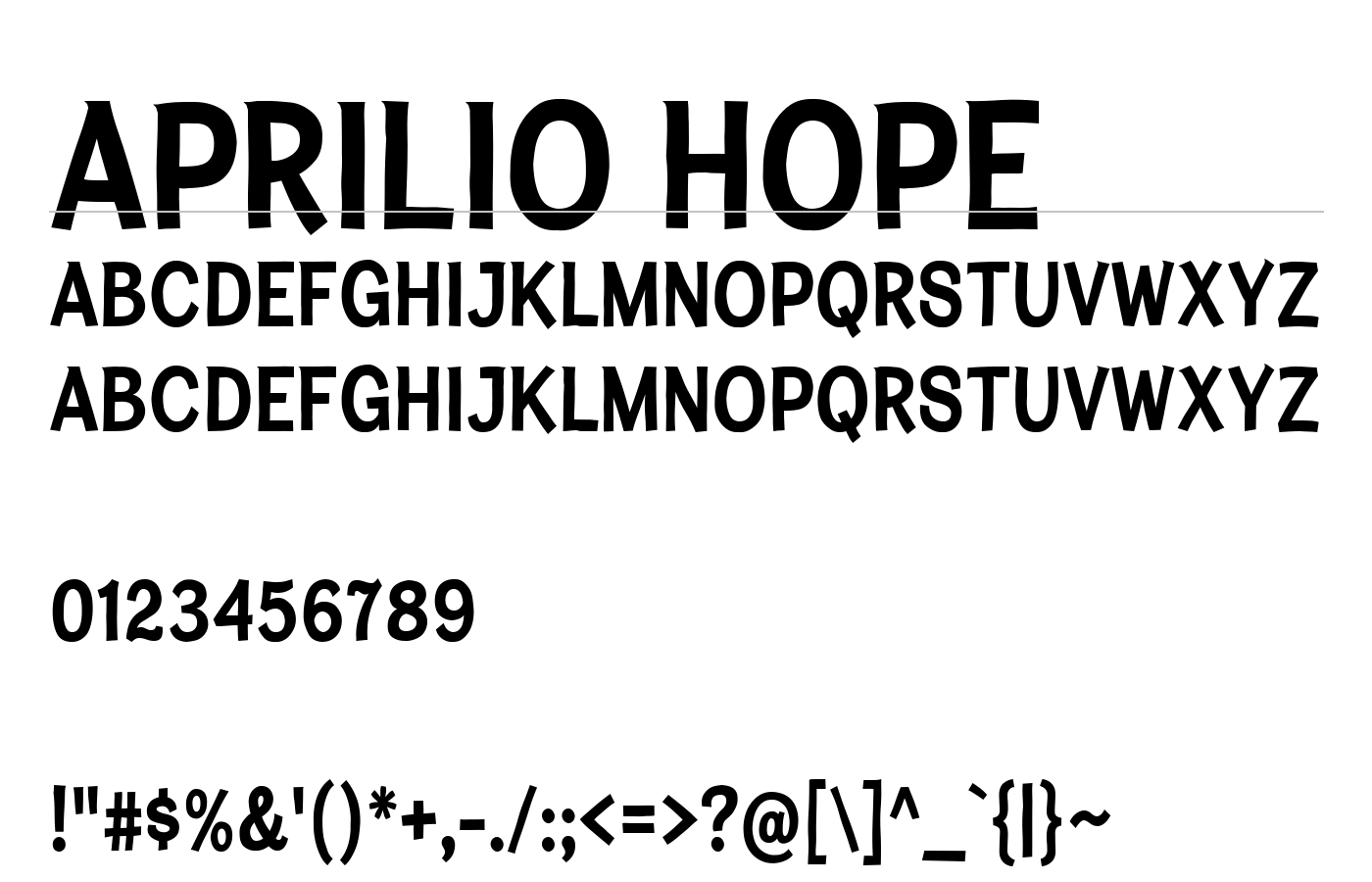
Aprilio Hope is a playful, sans serif font featuring a hand-drawn, slightly uneven style that adds a whimsical and friendly feel. Its bold weight and moderate contrast in stroke width make it stand out, while the quirky letterforms and irregular shapes give it a casual, approachable personality ideal for creative and informal branding, children's materials, and eye-catching headlines. This font works best where a fun and inviting tone is desired, lending charm and character to packaging, posters, and youthful editorial designs.
Aprilio Hope Font